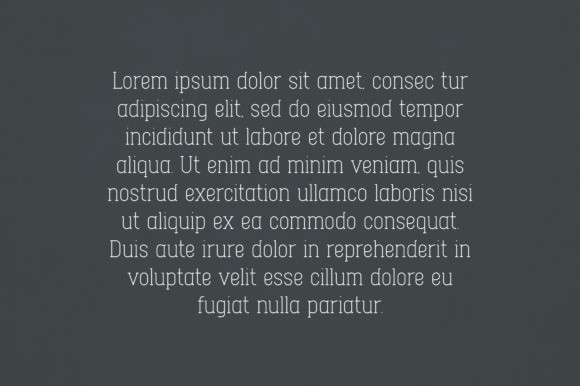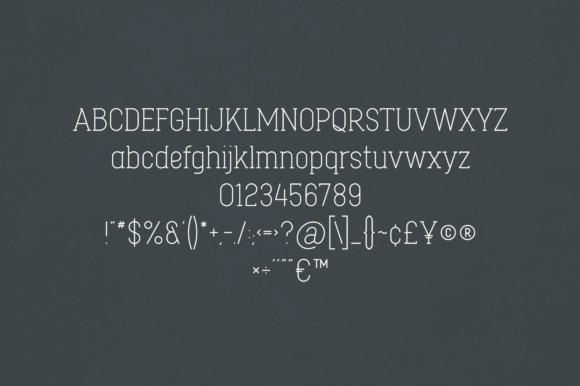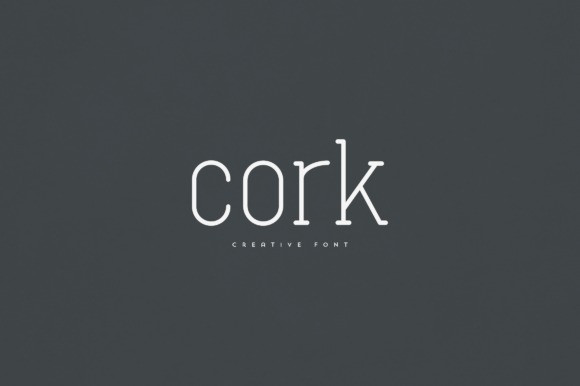
Cork Font
Cork Font is an elegant and versatile slab serif font that will make your typography truly unique! It will enchant every logo, branding, headline, or plain text!